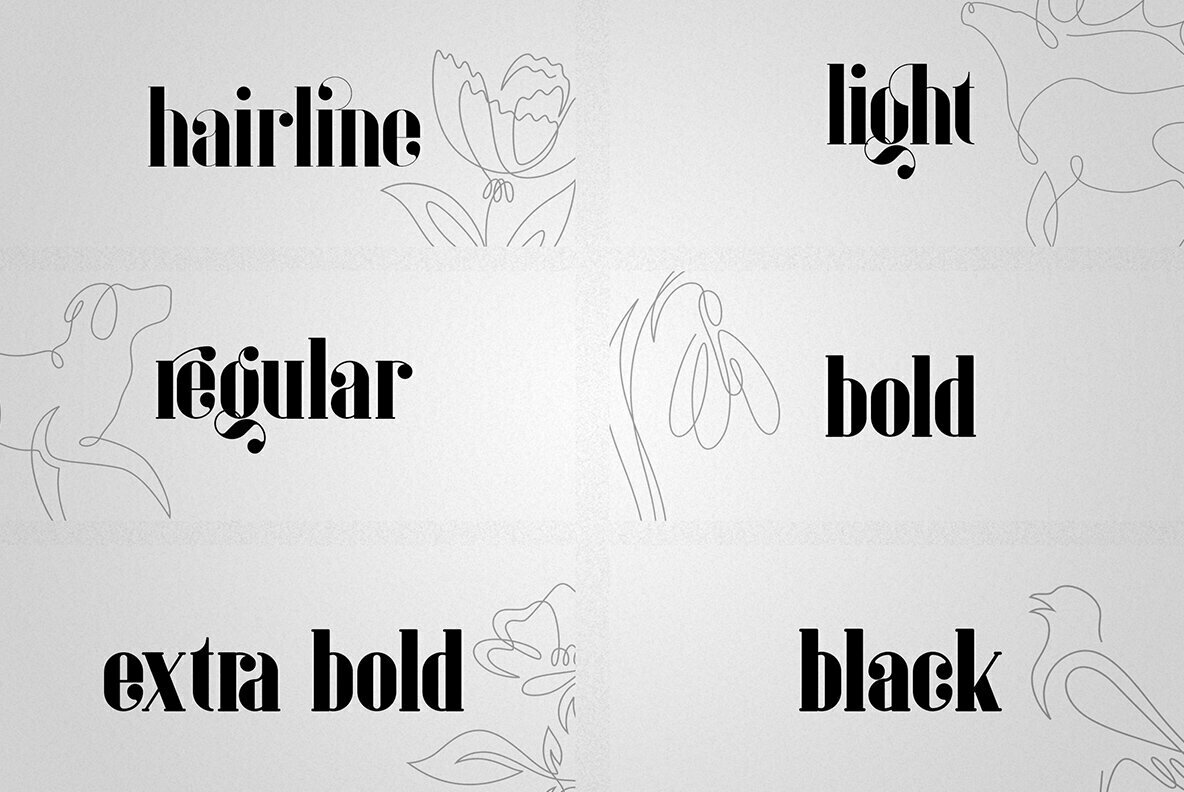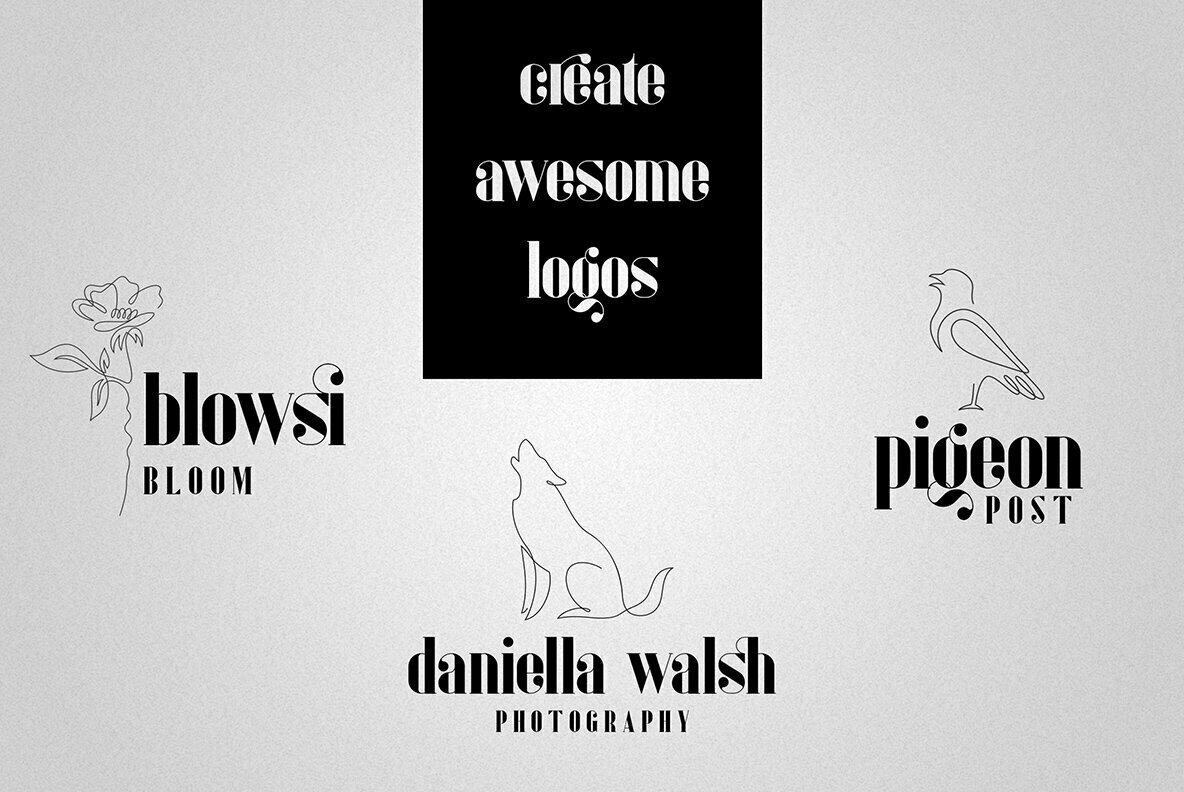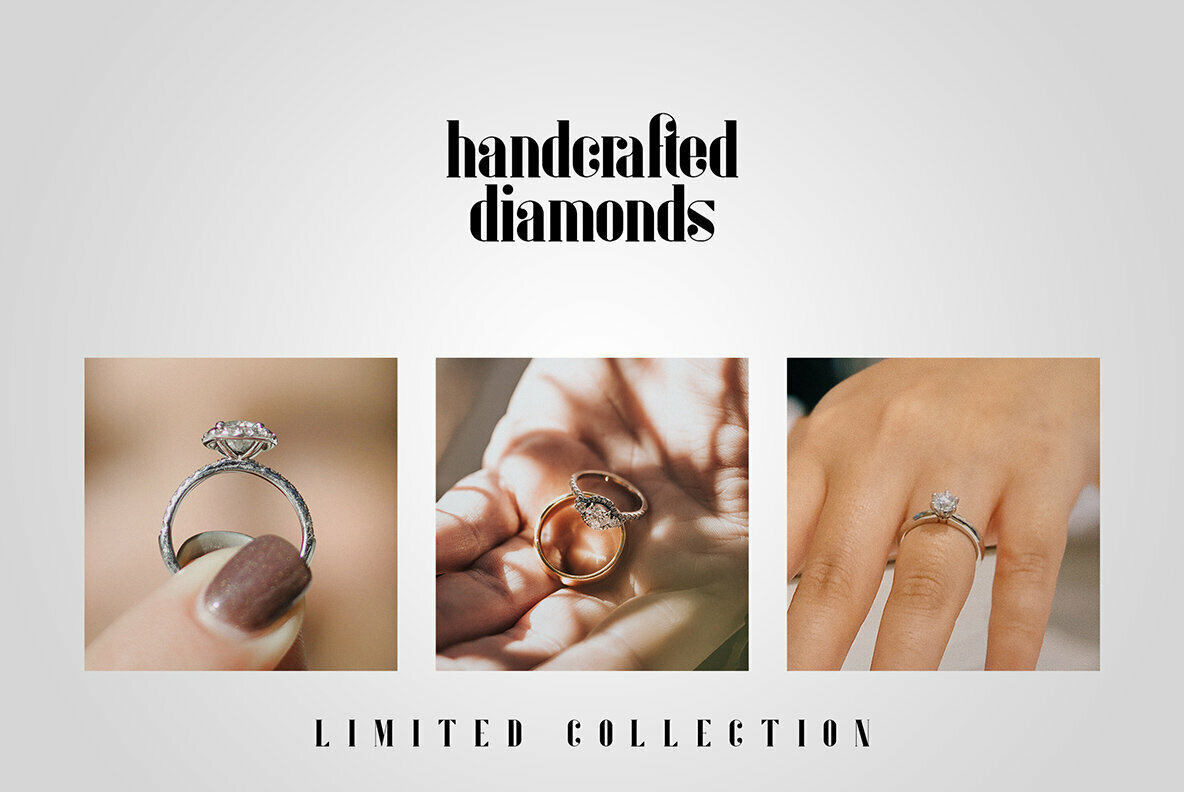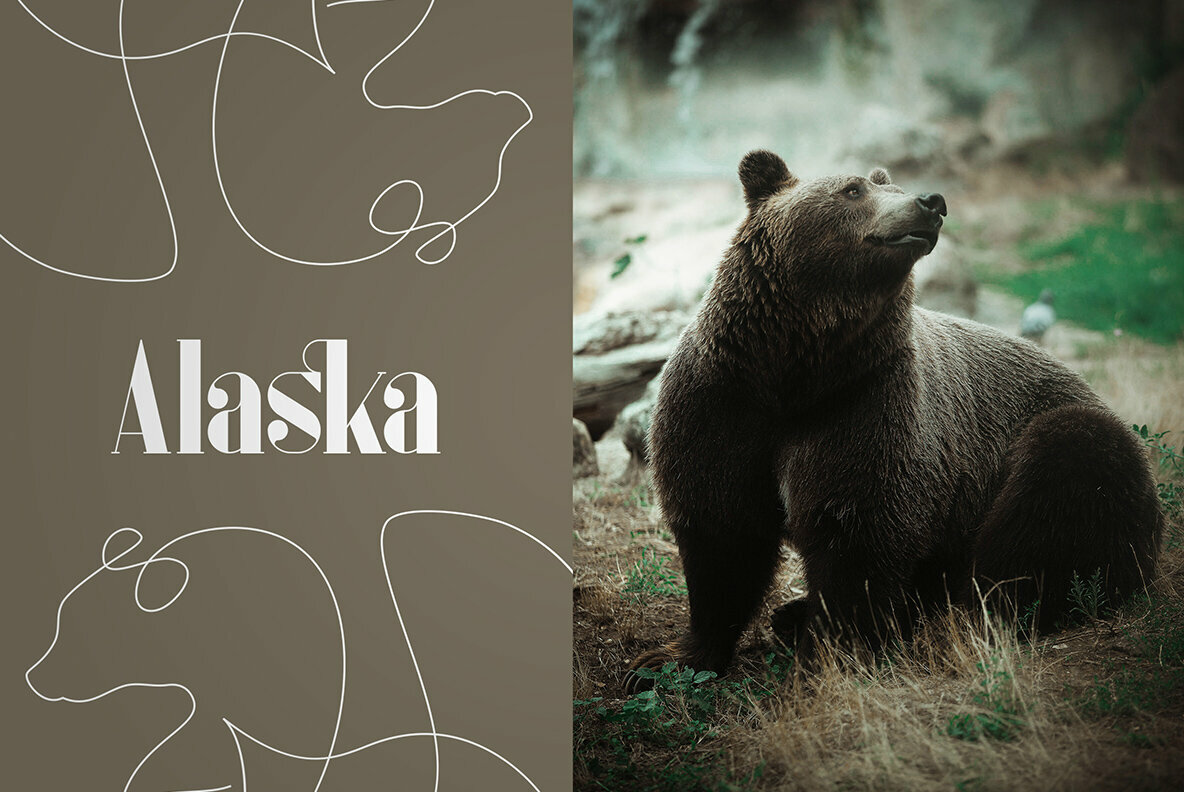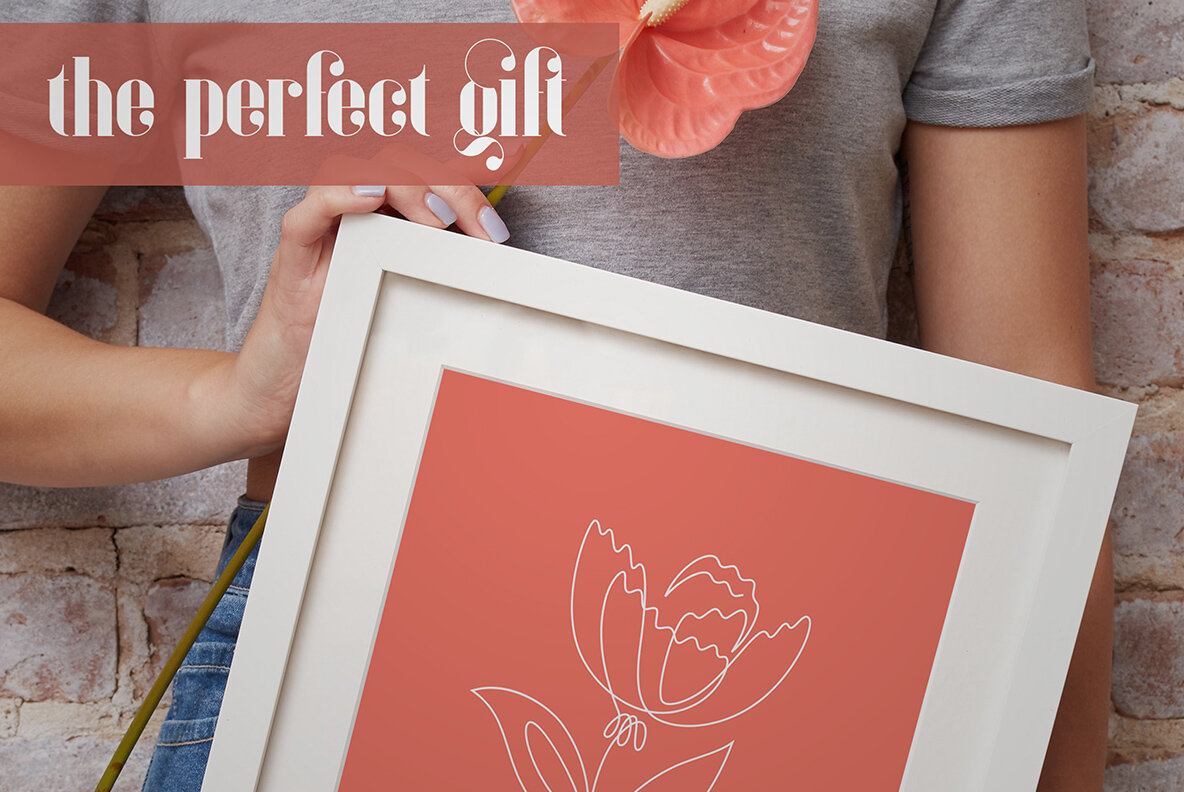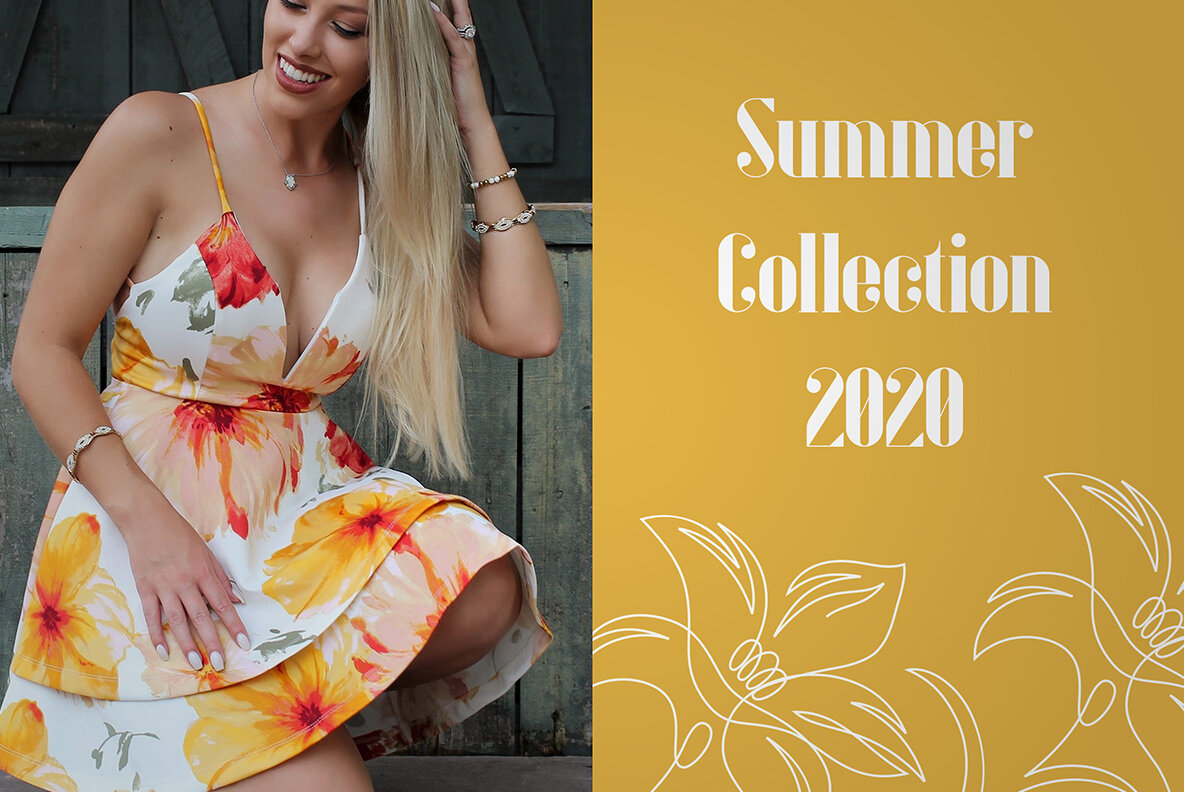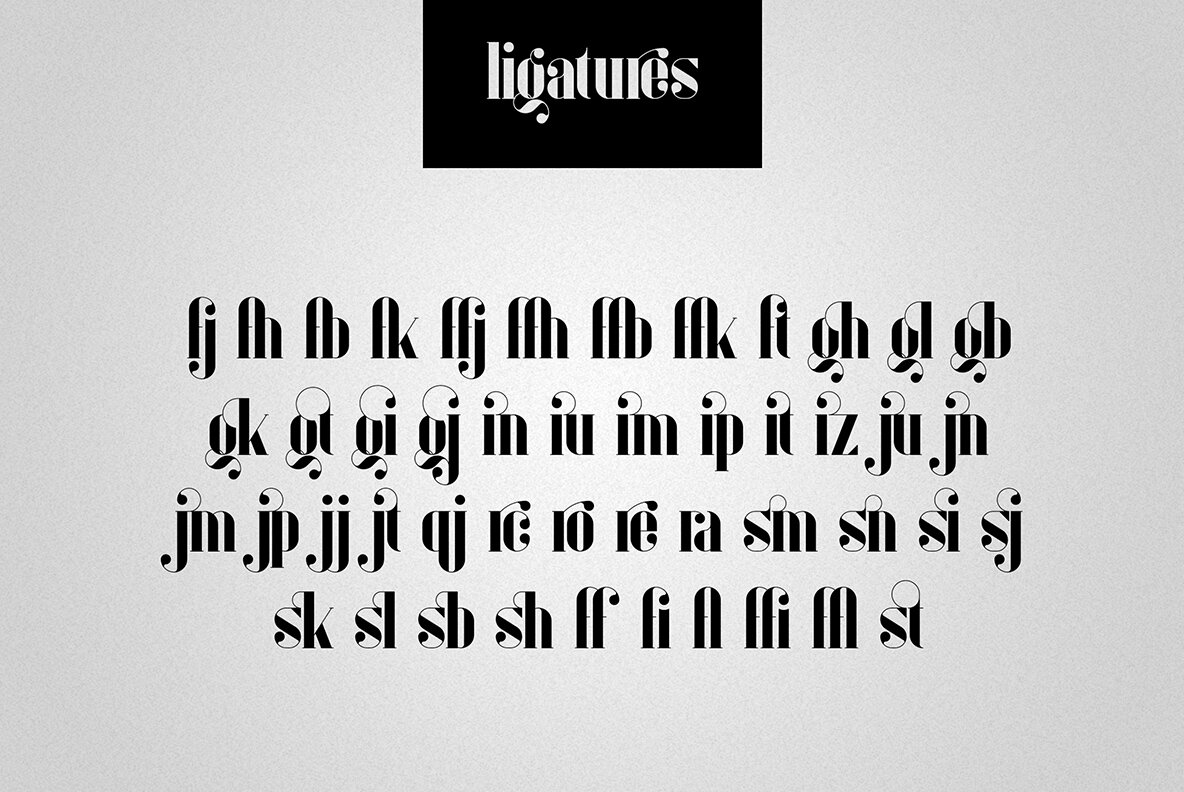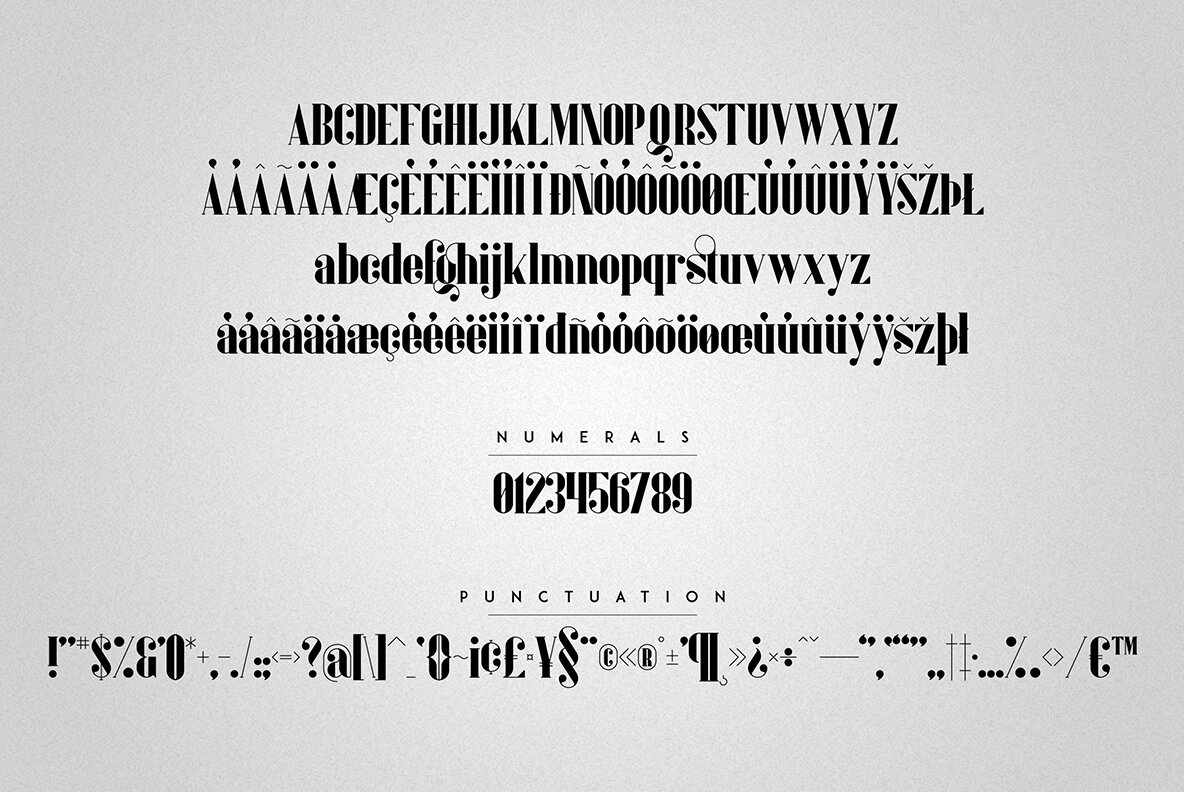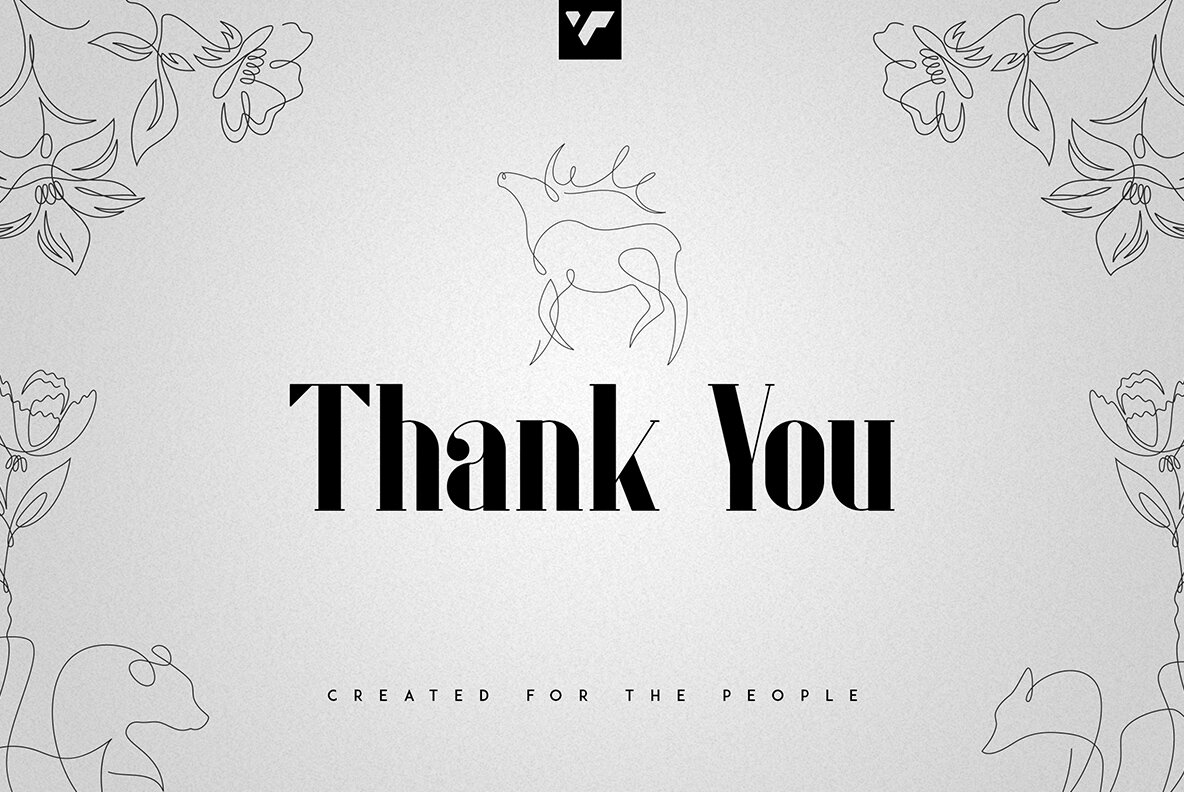
Inure Serif Typeface Font
Inure is a distinctive serif typeface offering a rich vintage appeal across six different weights. Designed with versatility in mind, it complements projects ranging from branding and product packaging to editorial and home-ware designs. The serif's bold aesthetic effortlessly adapts to both large and small sizes, making it an ideal choice for eye-catching magazine headers or stylish text overlays on various backgrounds. Whether designing innovative product packaging or framing editorial content with flair, Inure lends a touch of retro elegance to any project. Please note, mockups and backgrounds depicted are not included with the typeface package.Inure Serif Typeface: Versatility Meets Vintage Charm